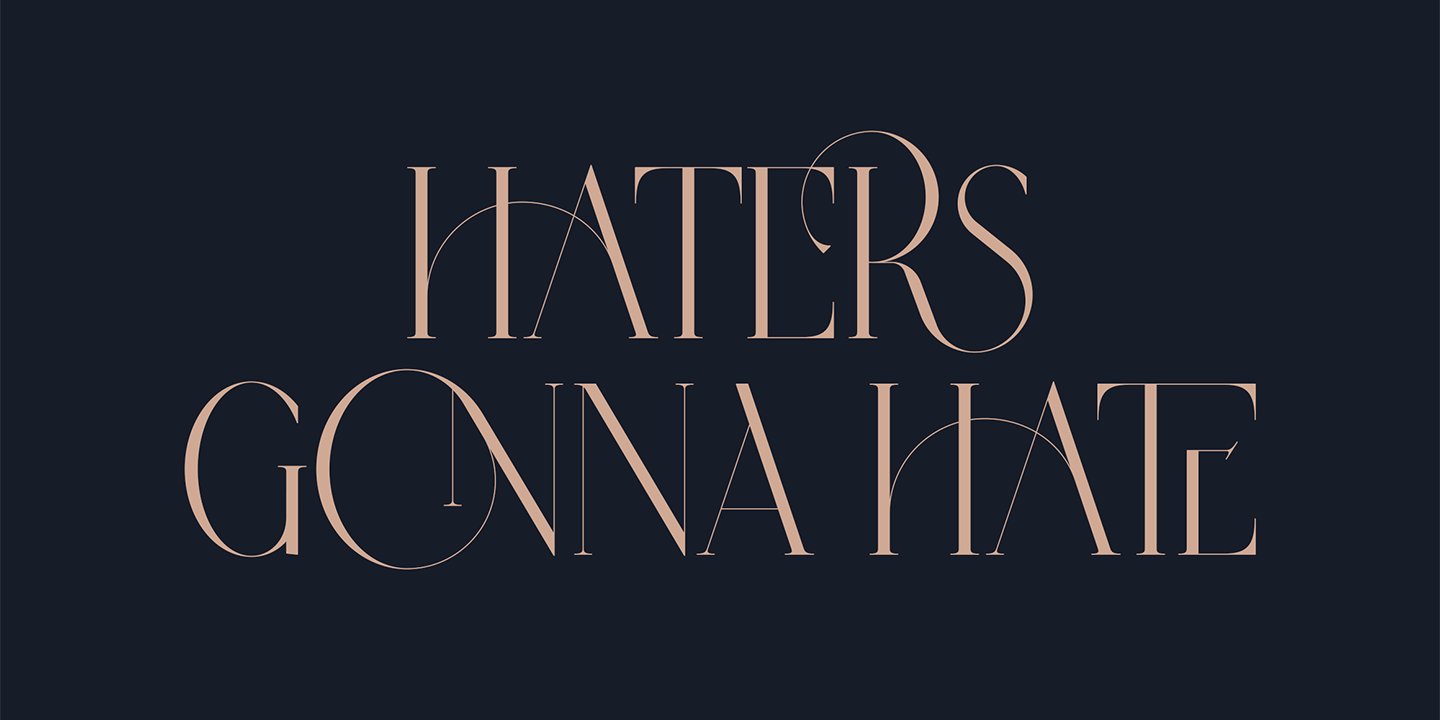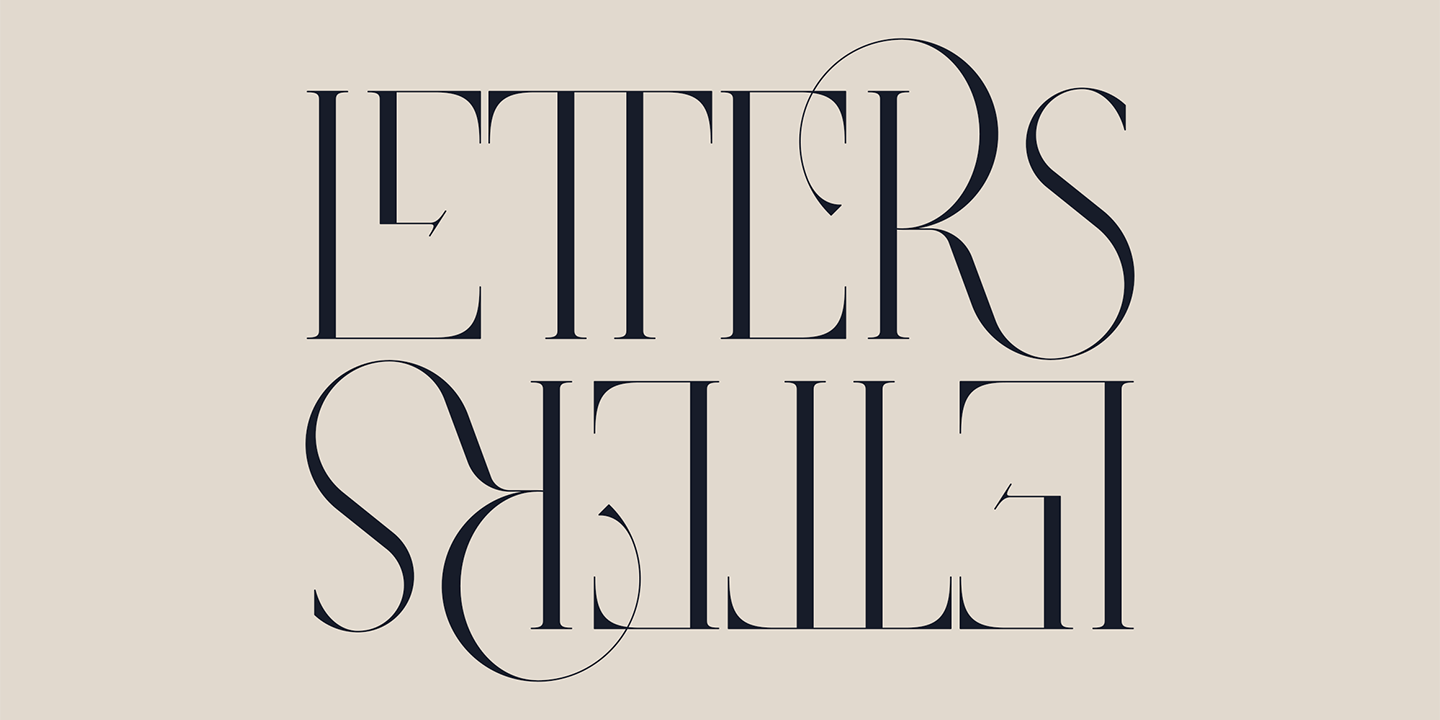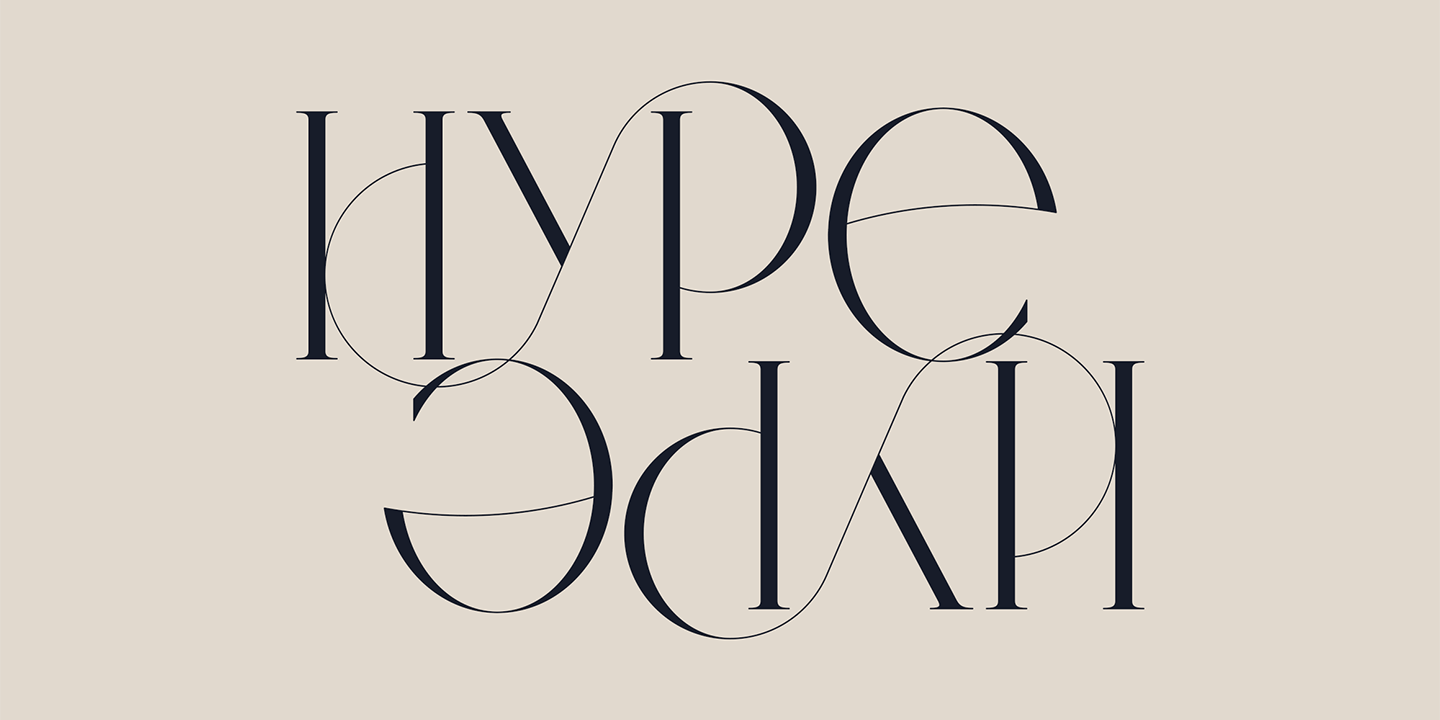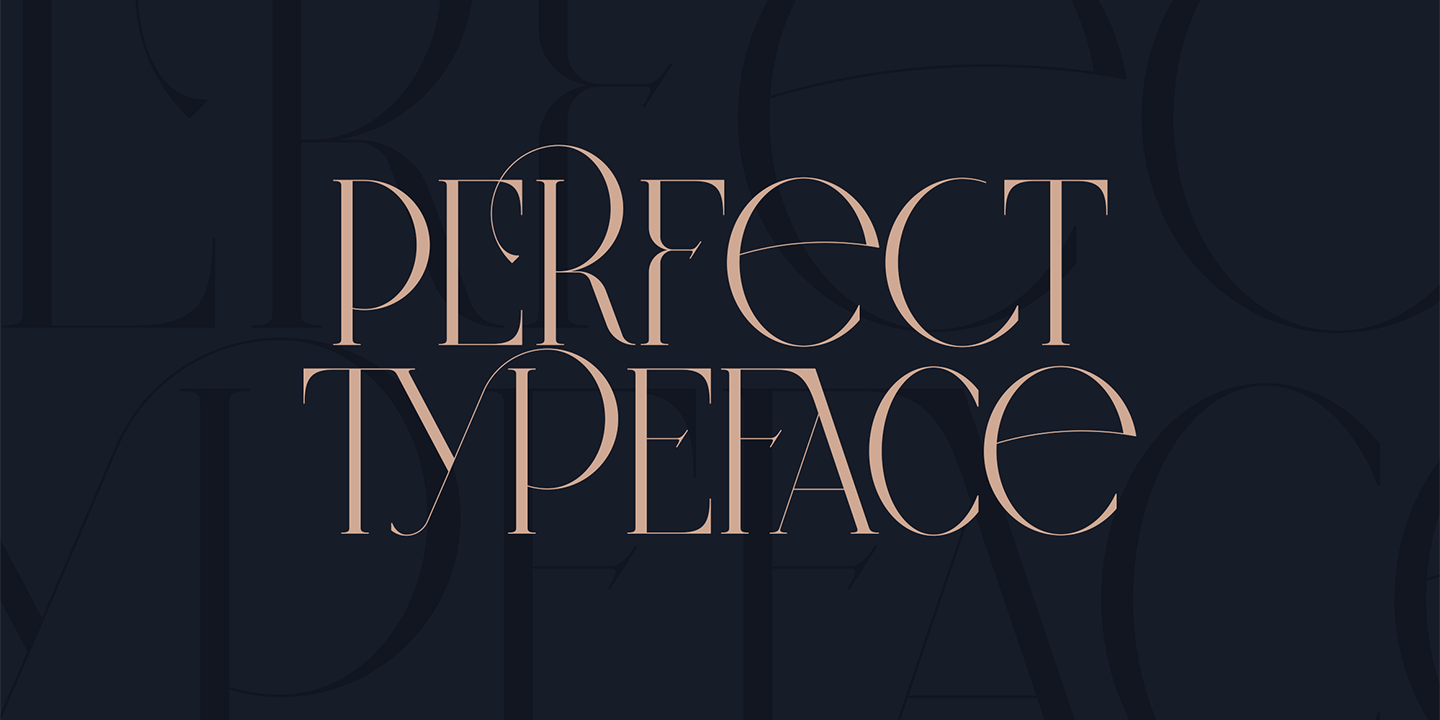
About Type Master Regular
Type Master is a sophisticated and delicate serif font that exudes elegance in every aspect. With its extensive collection of over 100 ligatures and alternate glyphs, this font offers endless possibilities for creative expression. Additionally, its support…